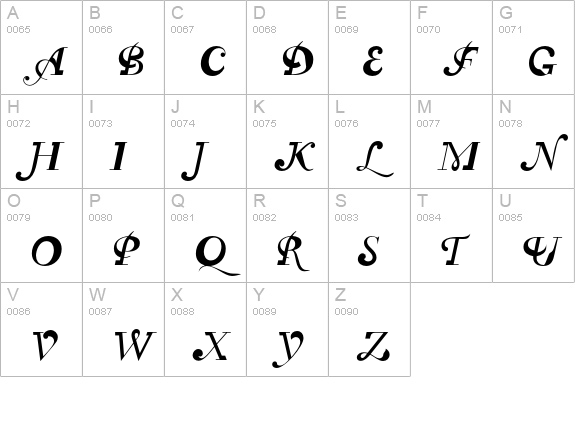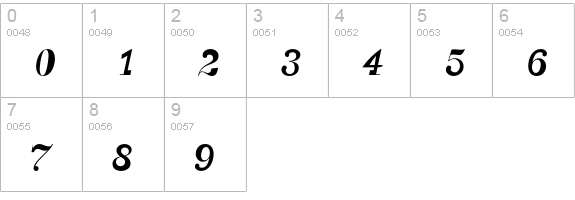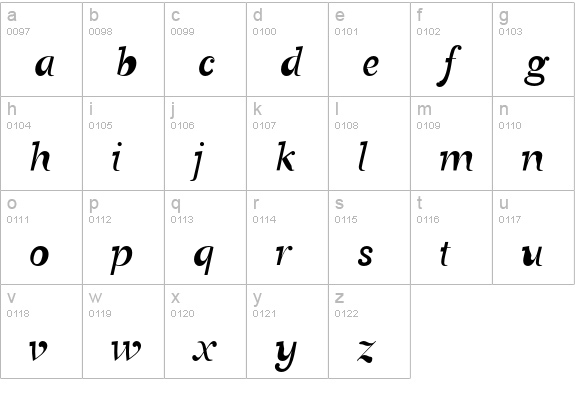
CanadianPhotographer-Script Font Details
CanadianPhotographer-Script is a stunning and elegant font that captures the essence of timeless beauty and sophistication. Its flowing curves and delicate lines evoke a sense of grace and charm, making it perfect for adding a touch of elegance to any project. This font is ideal for creating eye-catching designs, whether for wedding invitations, branding materials, or social media graphics. Its versatility and classic style make it a must-have for any designer looking to elevate their work to the next level. Best of all, CanadianPhotographer-Script is available for free download at FontsMarket.com. So why wait? Add this beautiful font to your collection today and start creating stunning designs that truly stand out.